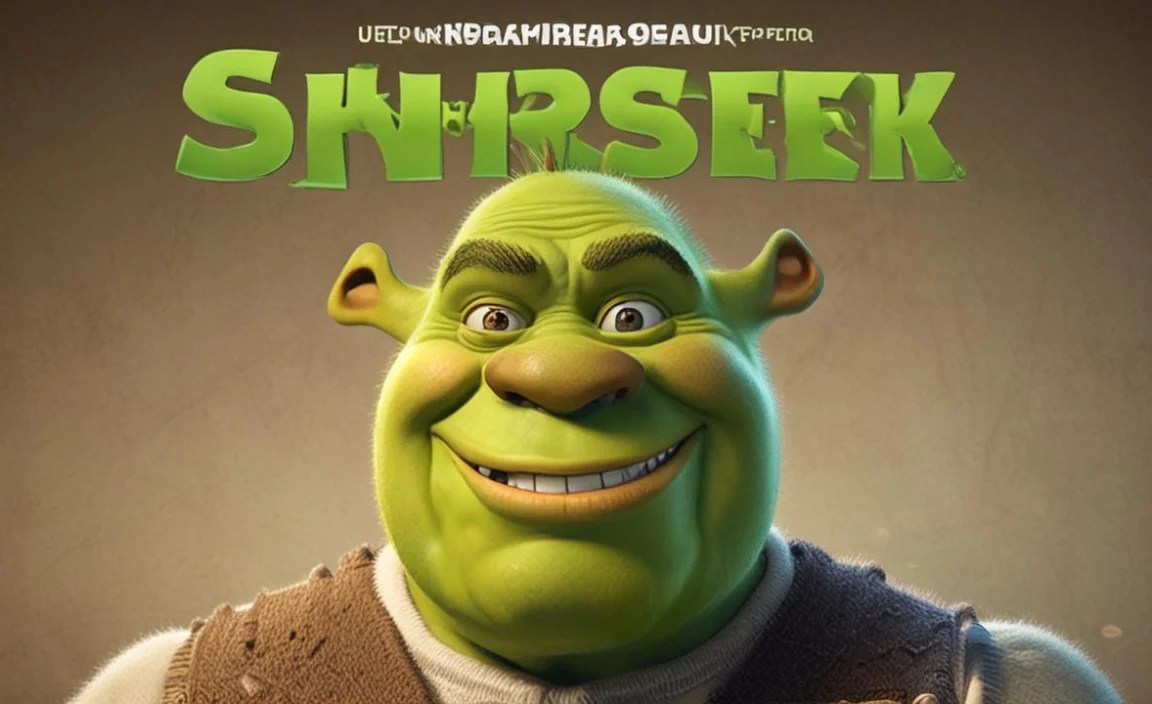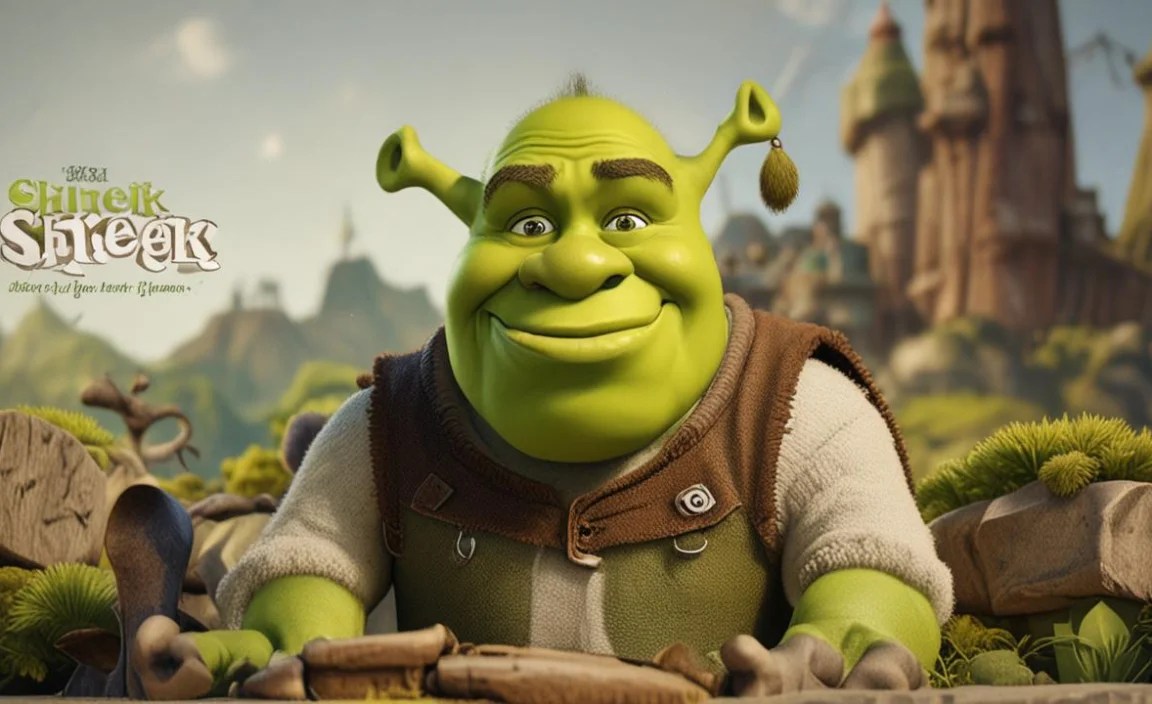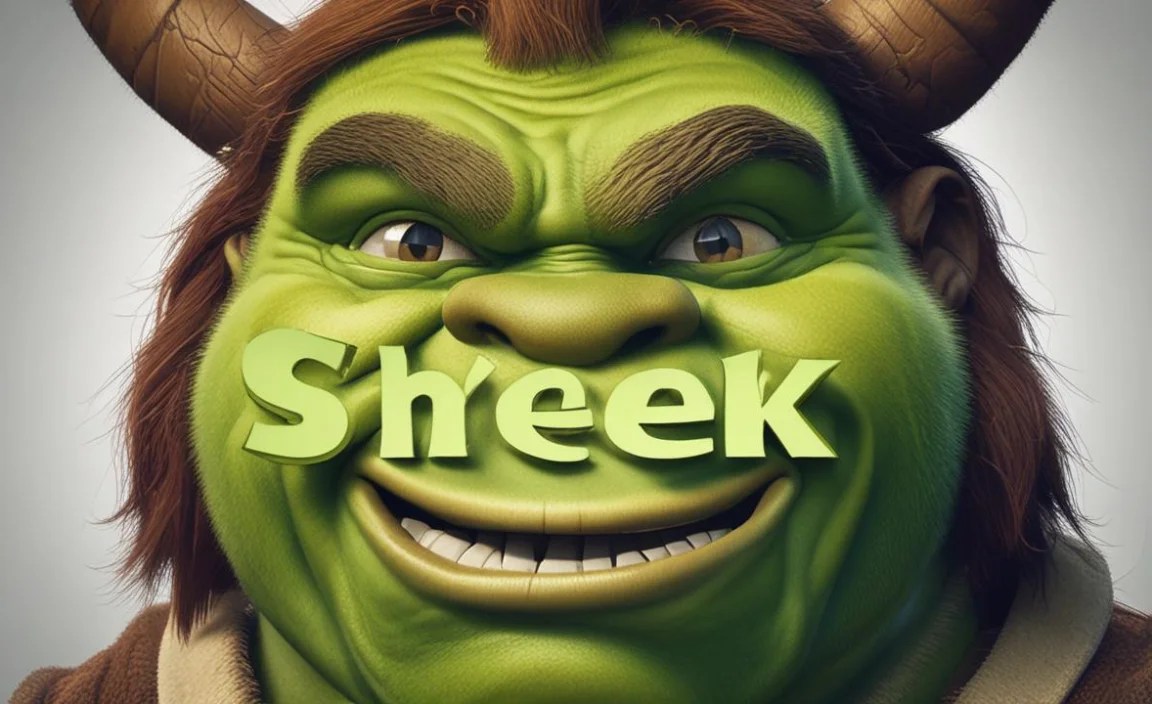
The Shrek Font, designed by Kevin Wilson, closely resembles the typeface used in the iconic 2001 animated film Shrek.
This font captures the whimsical and fantastical essence of the film, making it a popular choice for creative and personal projects. While the film’s original logo used a custom typeface, the Shrek Font offers a close alternative, and its unique, bold design makes it a popular choice for creative endeavors related to the Shrek universe.
Shrek Font Information
| Name | Shrek Font |
| Style | Display |
| Designer | Kevin Wilson |
Shrek Font Family Includes
- Shrek Regular
- Shrek SemiBold
- Shrek 2
- Shrek Swash
- Shrek Bold
- Shrek Outline
Where Shrek Font Is In Use
This font is ideal for projects that need a playful and imaginative touch. Use the Shrek Font to add a whimsical and fun element to your designs, which is ideal for personal projects such as event invitations, themed websites, and creative graphics.
Shrek Font Alternative
1. What Is The Origin Of The Shrek Font?
The Shrek Font draws inspiration from the title lettering used in the Shrek film posters. While the original logo was custom-designed, FG Studios offers a similar replica called “Donkey.”
2. What Is The Shrek Font Called?
Shrek Font Name: Shrek Font by Kevin Wilson.
3. What Are The Best Alternatives To The Shrek Font?
Best Alternatives: Donkey by FG Studios, Ogre by WZ Fonts, Grinched by Hanoded.
5. What Are The Unique Features Of The Shrek Font?
Unique Features: Playful, whimsical design with a fantasy-inspired aesthetic; resembles the movie’s title lettering.
6. What Font Is Ogre Tales Font?
Ogre Tales Font: It is a distinct typeface WZ Fonts are the designers. Moreover, inspired by fantasy themes.
7. What Font Was Used In The Shrek Logo And Posters?
Font Used: Custom typeface for the logo, similar to Donkey by FG Studios.